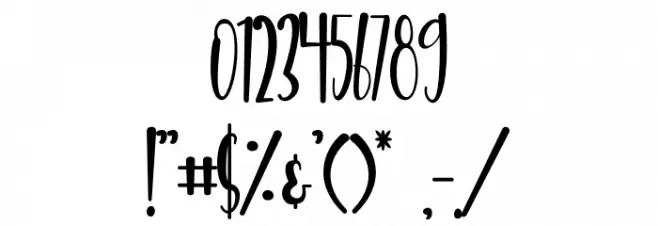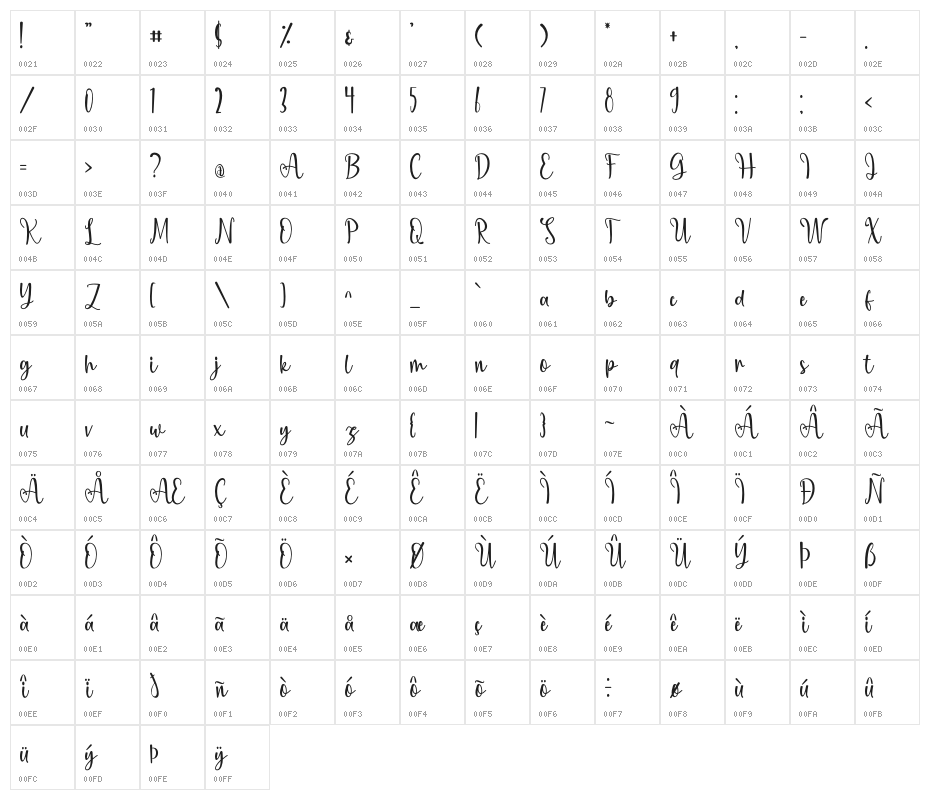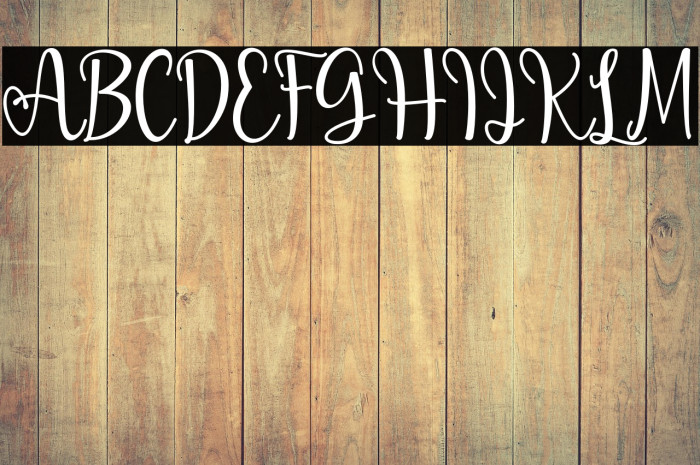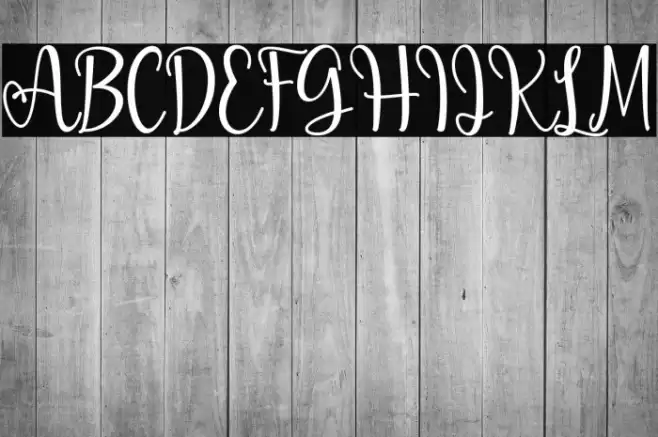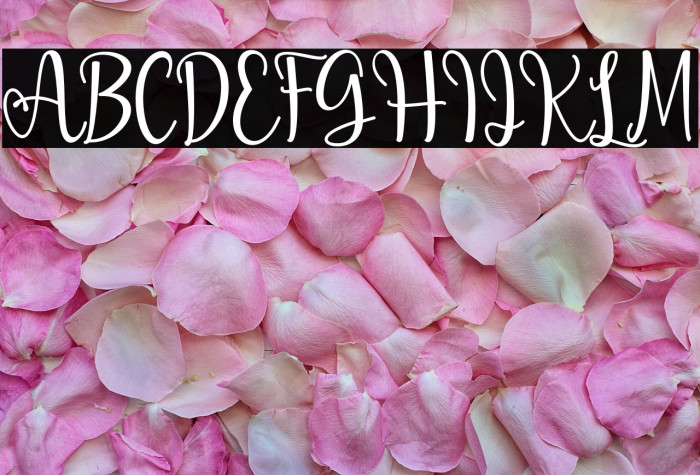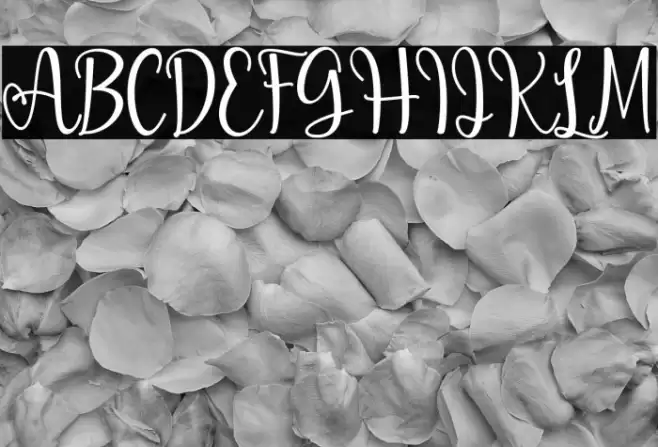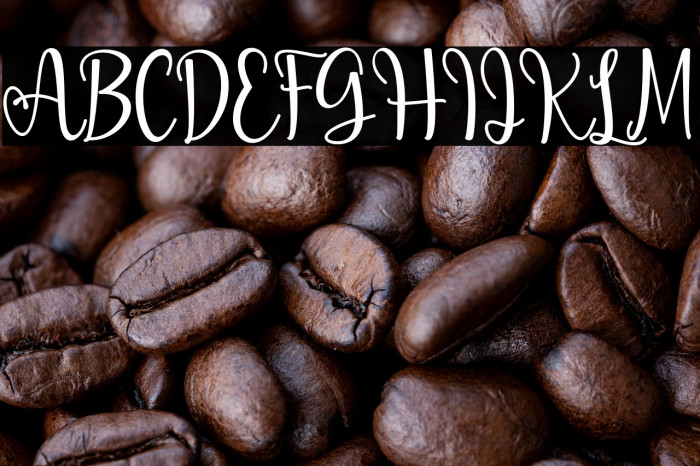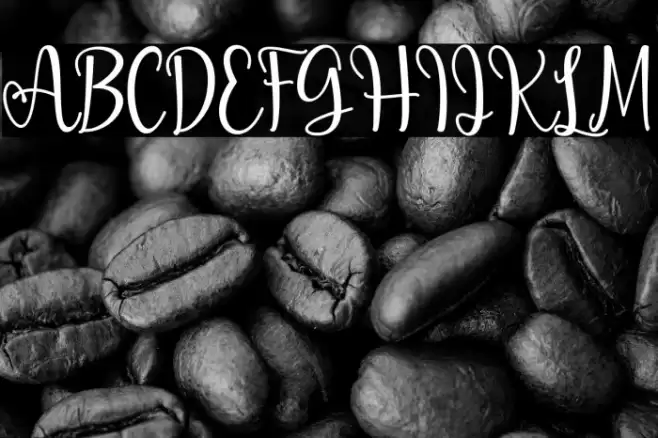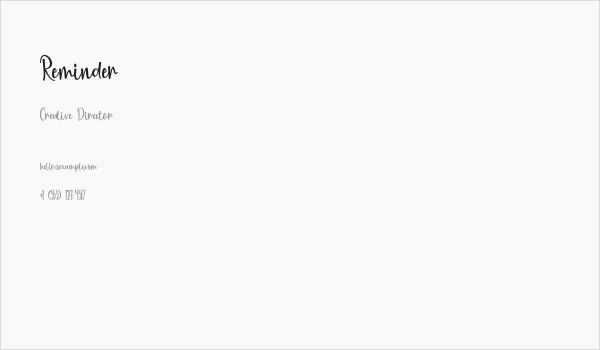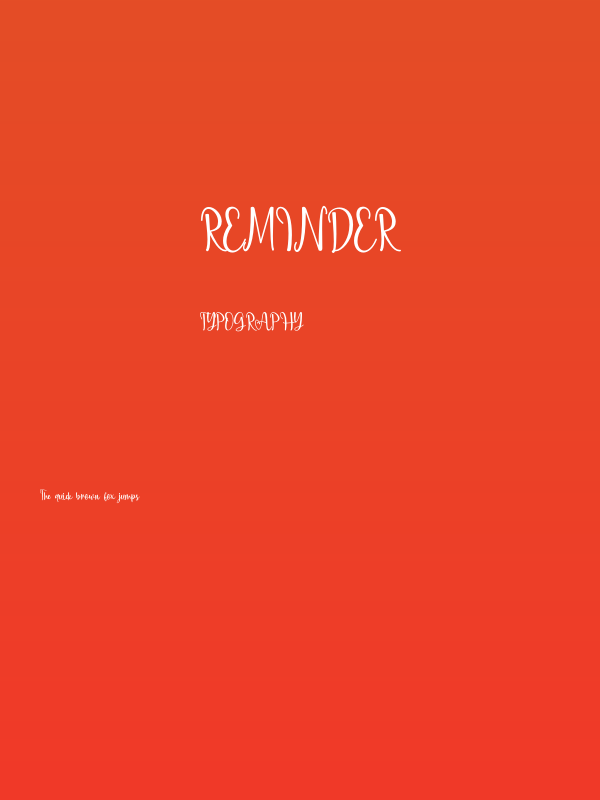
Reminder Font
Reminder Description
This font features a playful and elegant script style with a handwritten appearance. The uppercase letters are characterized by their tall, flowing lines and decorative loops, giving them a whimsical and artistic flair. The lowercase letters maintain a consistent style with smooth curves and a slightly irregular baseline, enhancing the handwritten feel. The numerals are clear and legible, matching the overall aesthetic of the font. Special characters are creatively designed, adding to the font's versatility. This font is perfect for projects that require a personal touch, such as invitations, greeting cards, or branding materials.
| Proposed Projects | Ideal for invitations, greeting cards, branding, and any project needing a personal, artistic touch. |